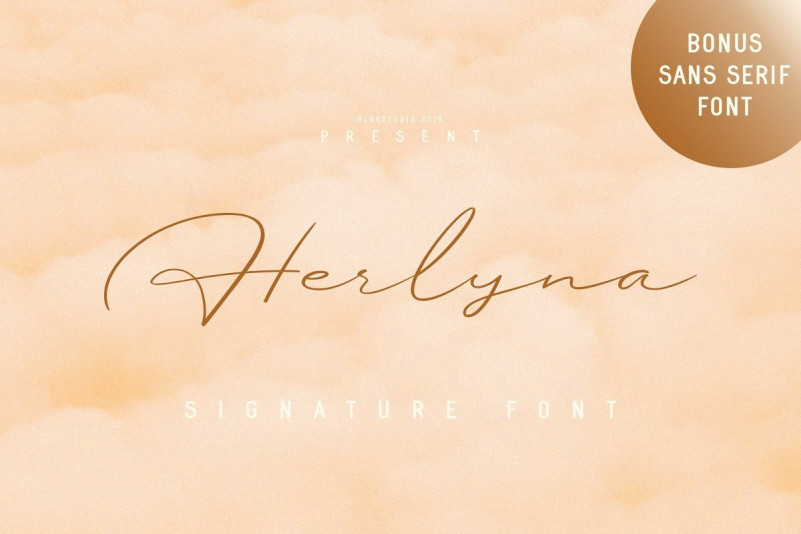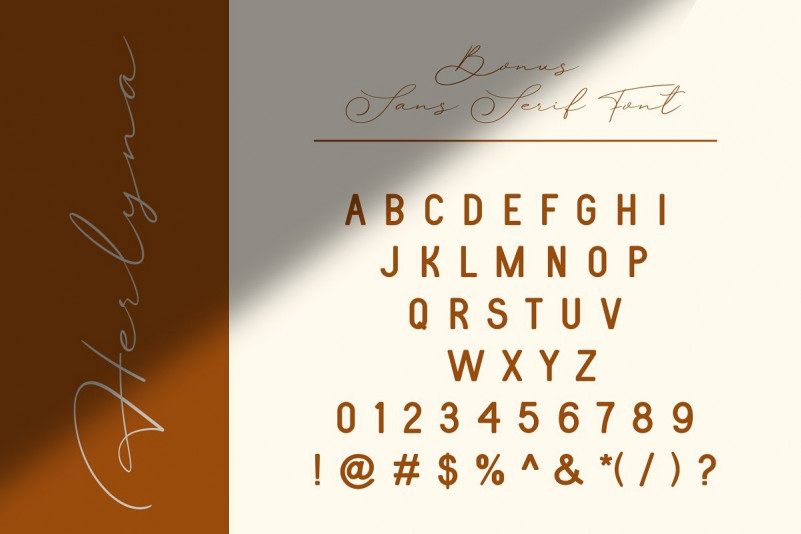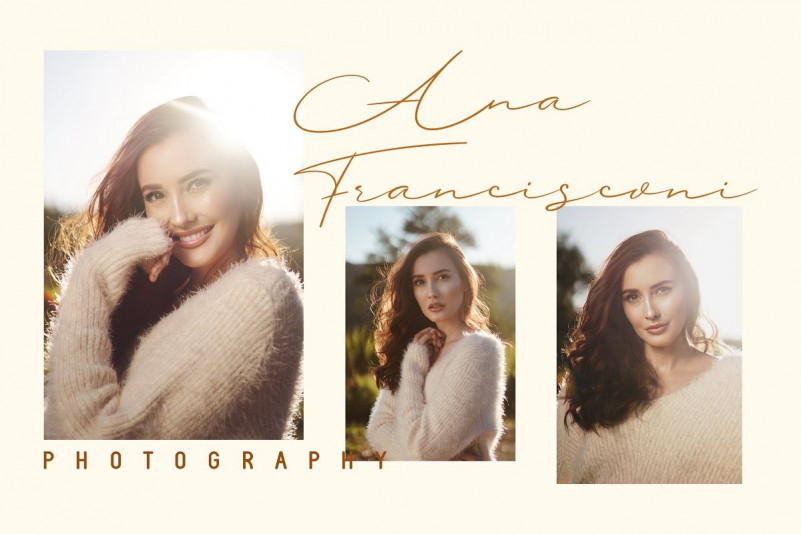
Herlyna Font
Herlyna is a modern, stylish and elegant signature font.
Herlyna is perfect for all types of your design projects. Such as: watermarks, quotes, business cards and more.